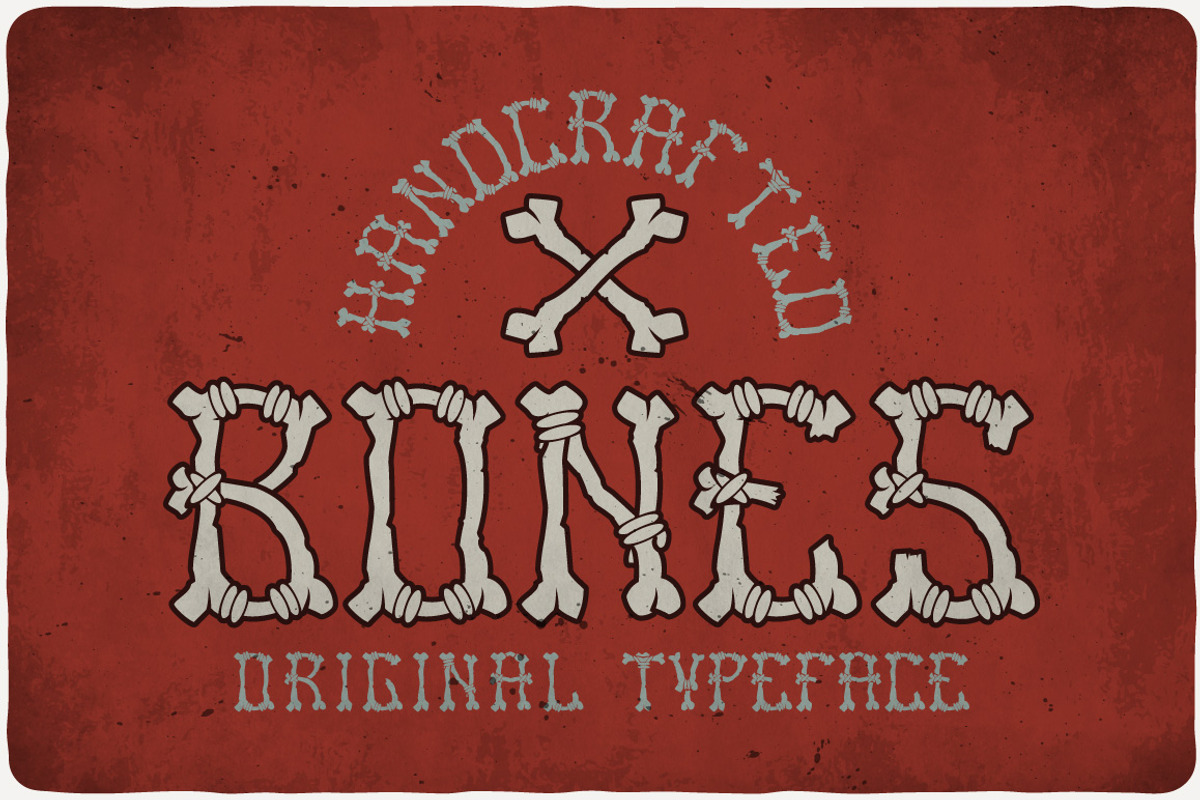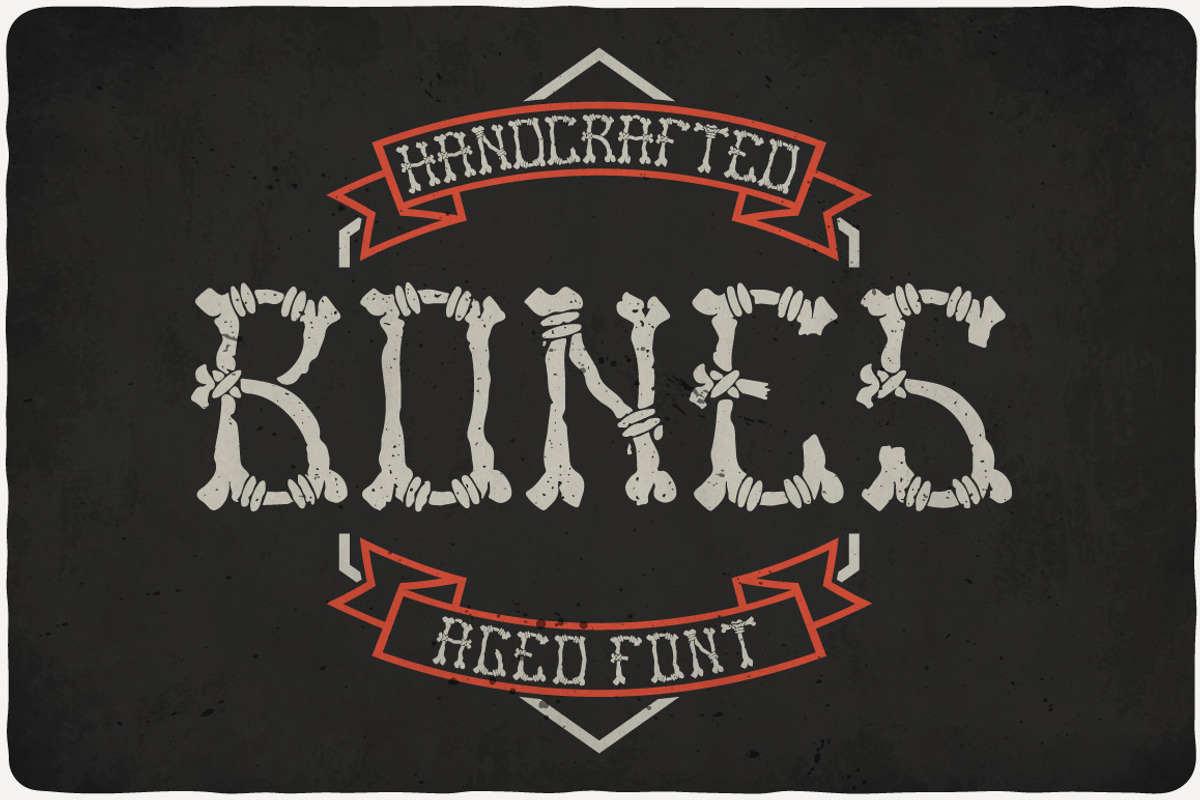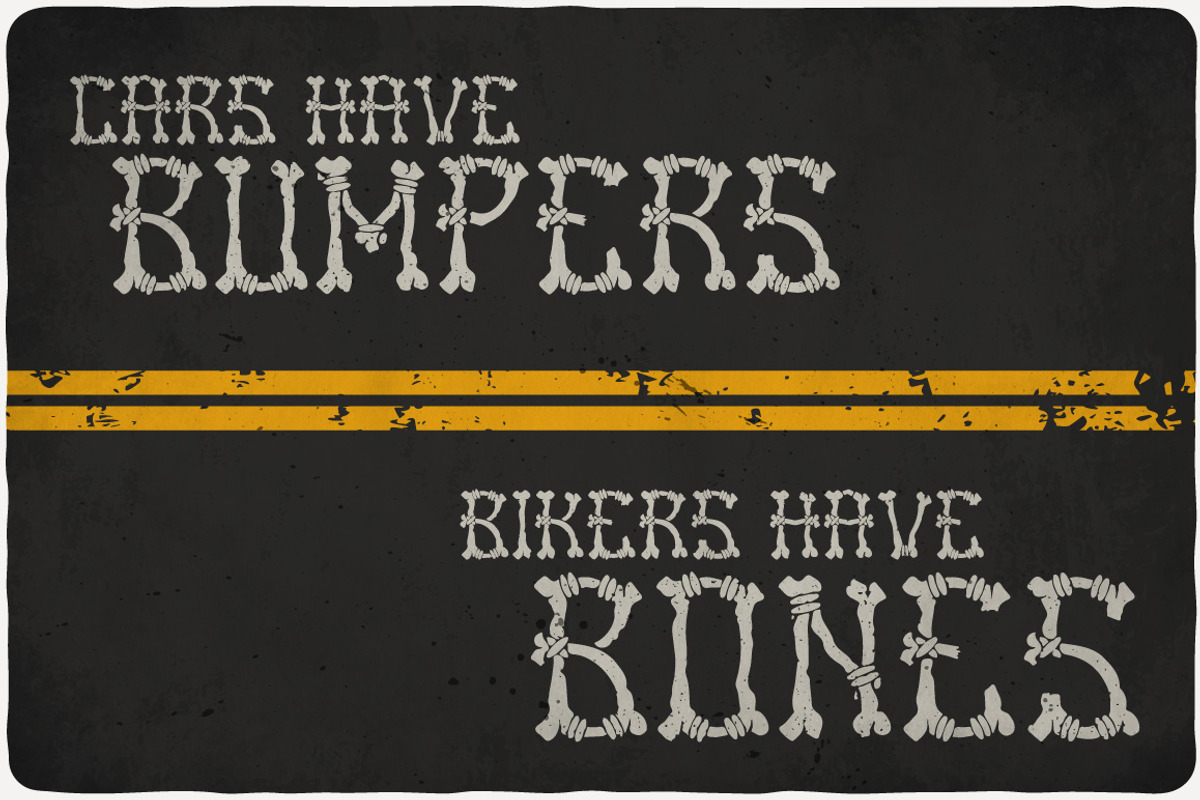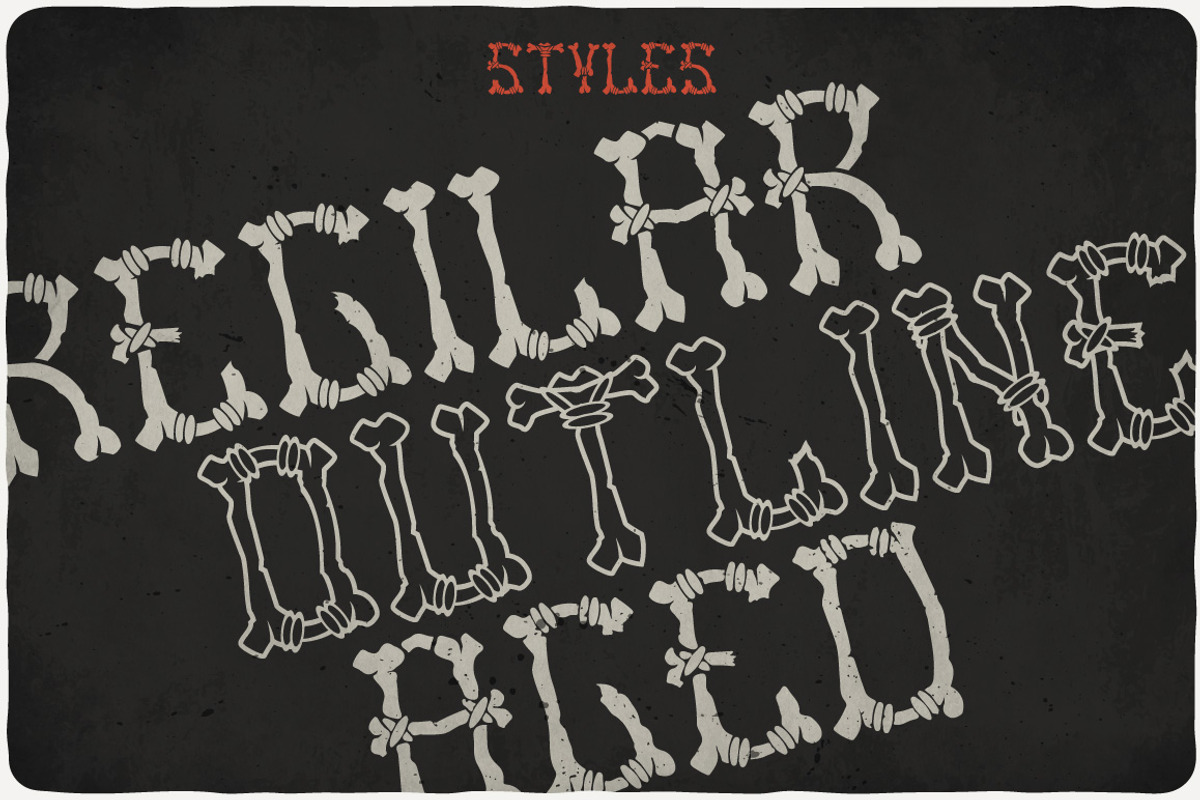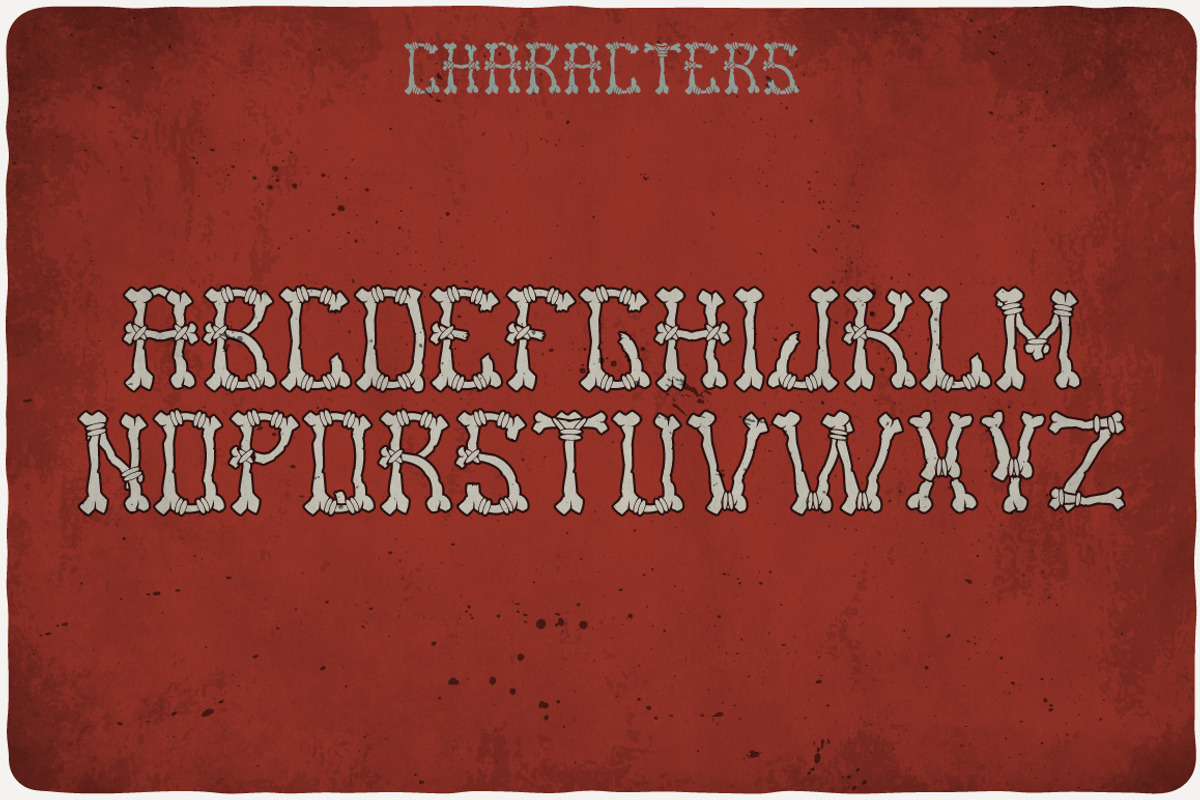
Bones Typeface
Introducing a original look label typeface named "Bones". It's made in scary and Halloween style :) Typeface is good viewed on any your design.
- Bones Regular
- Bones Aged
- Bones Outline